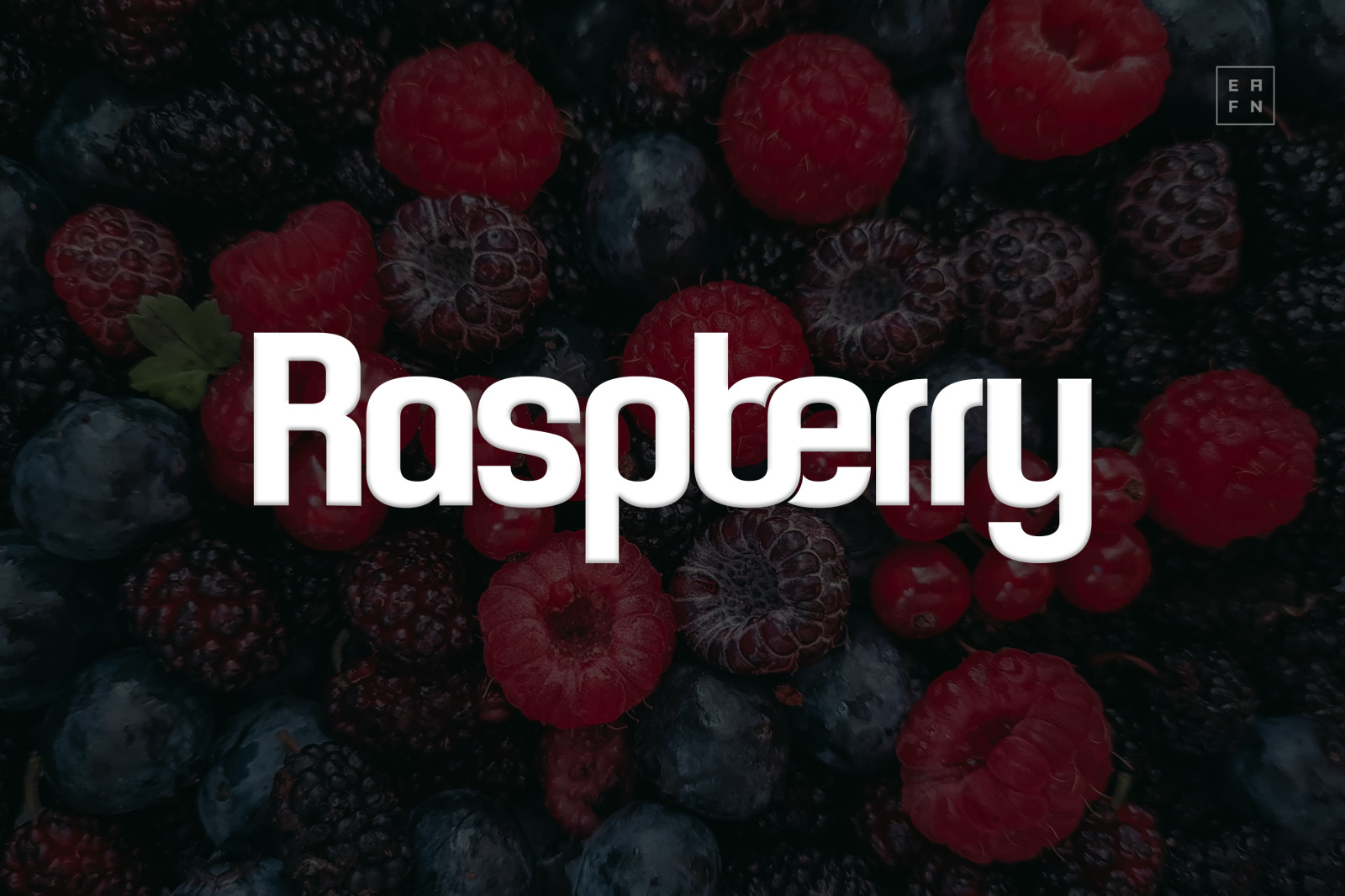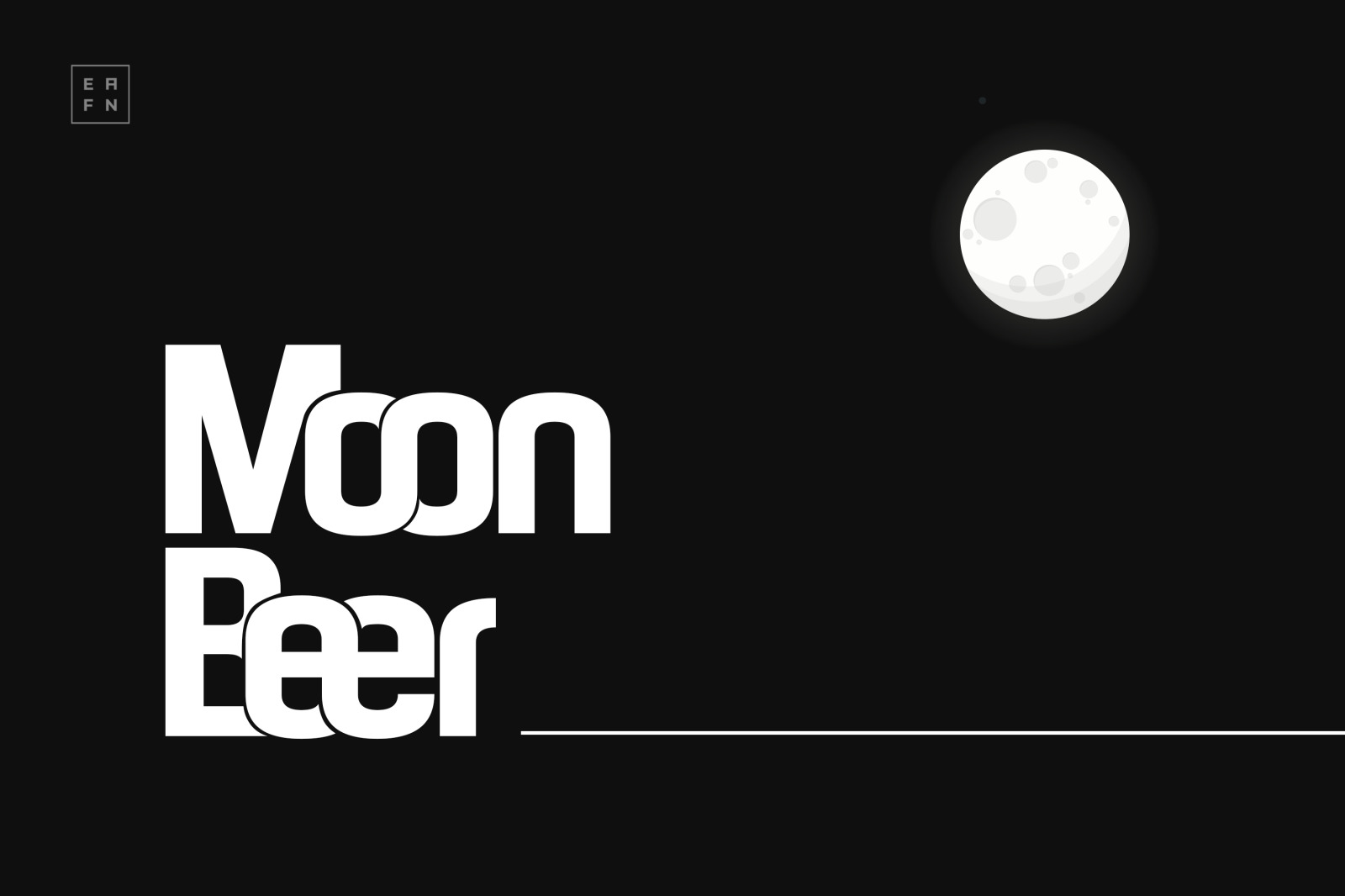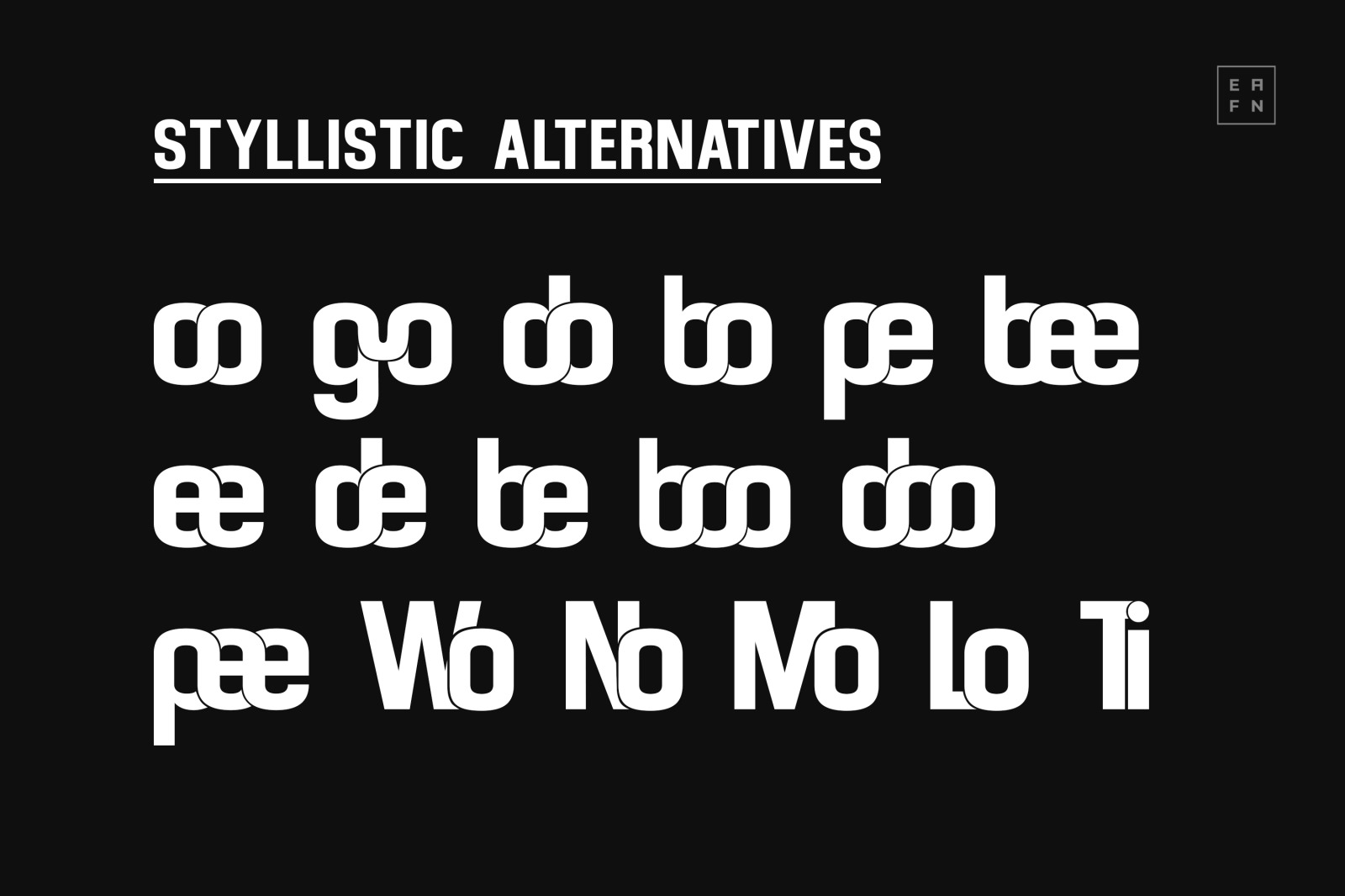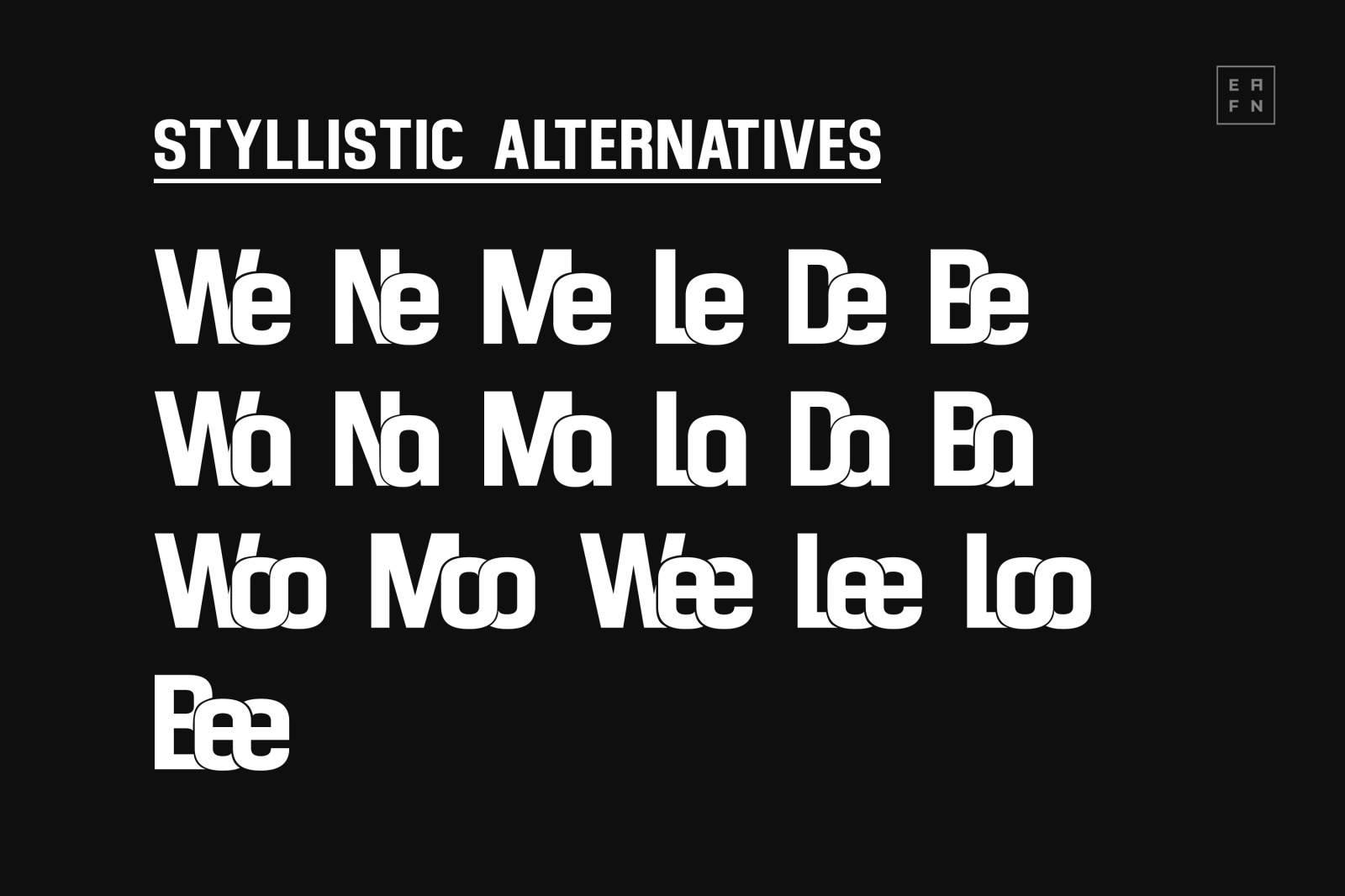
Raspberry Font
Raspberry is a casual sans serif font. Simple and easy to use, this font will be very beautiful if you mix it with your various craft designs.
Raspberry is a Modern ligature typeface with Classy, Unique and Stylish. It Is perfect for branding, logos, invitation, master heads, and more.
Raspberry Features :
- Ligatures
- Multi language
- Stylistic Alternates